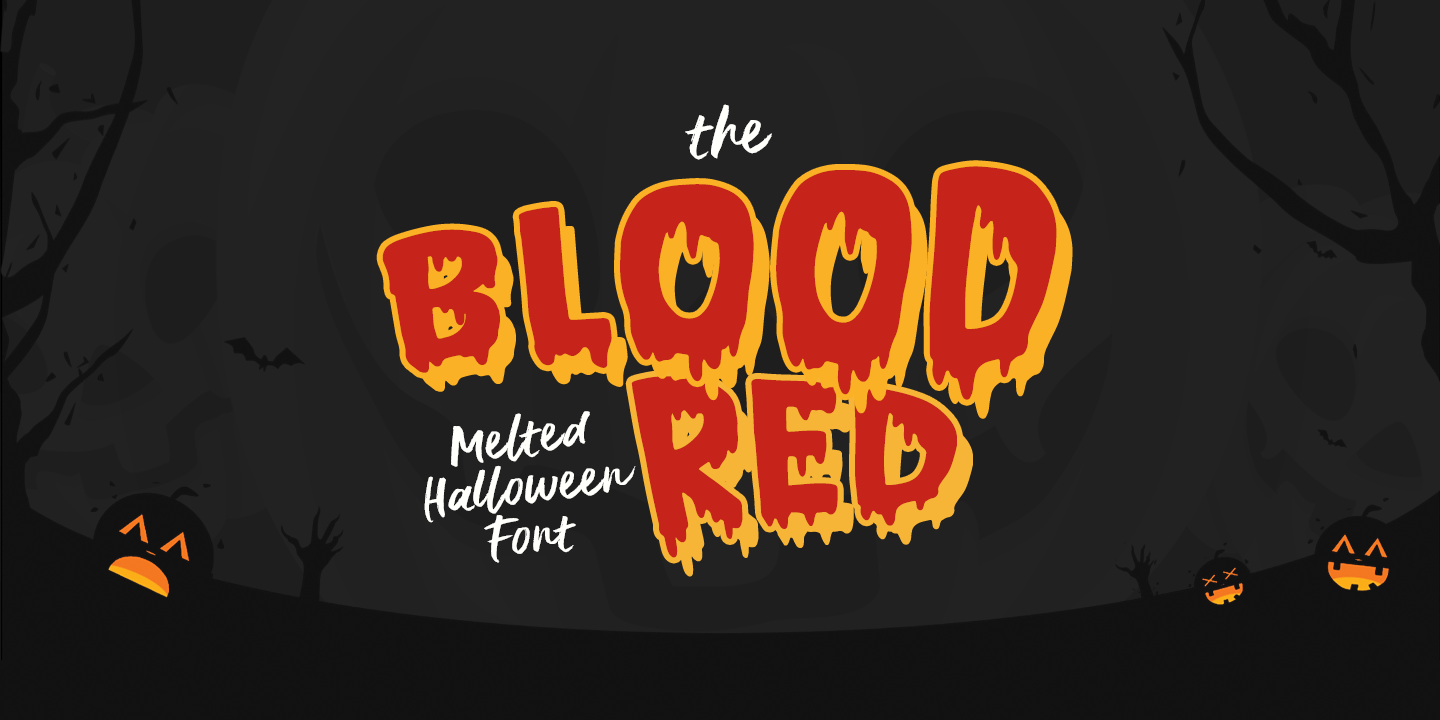
Bloodred Font is perfect for horror movie posters, Halloween graphics, gothic designs, vampire-themed materials, dark entertainment branding, thriller publications, intense advertising campaigns, and dramatic blood typography.
What makes Bloodred Font exciting is its intense dramatic character that embodies blood-red intensity and gothic darkness through bold letterforms and horror appeal. This powerful typeface features blood construction, gothic details, and dramatic personality that captures the essence of horror aesthetics and dark entertainment, making it ideal for projects seeking to communicate intensity, gothic atmosphere, and horror excitement with authentic blood appeal and dark sophistication.
The Bloodred Font family includes Regular, Medium, and Bold weights, each maintaining the characteristic blood intensity and gothic appeal that define this distinctive typeface's horror personality and dark sophistication.
Bloodred Font Free Download provides access to a typeface that perfectly captures the essence of blood-red intensity and gothic horror aesthetics. This dramatic font brings authentic horror aesthetics to contemporary projects, making it essential for horror entertainment companies, gothic brands, and dark entertainment organizations targeting audiences who appreciate horror themes and gothic intensity. The font's blood construction and gothic details ensure immediate recognition of drama and intensity while its distinctive character creates powerful connections among individuals drawn to horror experiences and gothic culture. Whether designing horror movie materials, gothic brand campaigns, or dark entertainment communications, this font delivers the blood authenticity and gothic sophistication that horror enthusiasts expect. Its horror foundation and blood symbolism make it indispensable for projects celebrating gothic culture, horror entertainment, and the dramatic power of blood-red aesthetics, ensuring communications resonate with audiences who value the horror intensity, gothic darkness, and blood sophistication that define authentic horror experiences and gothic entertainment across diverse horror and dark entertainment applications.